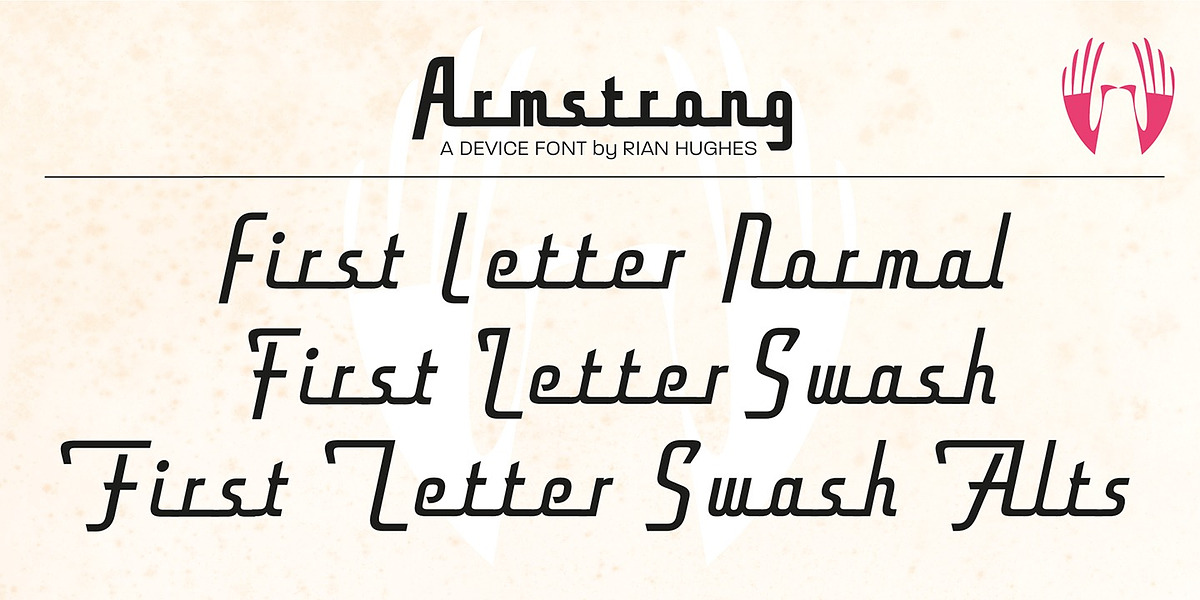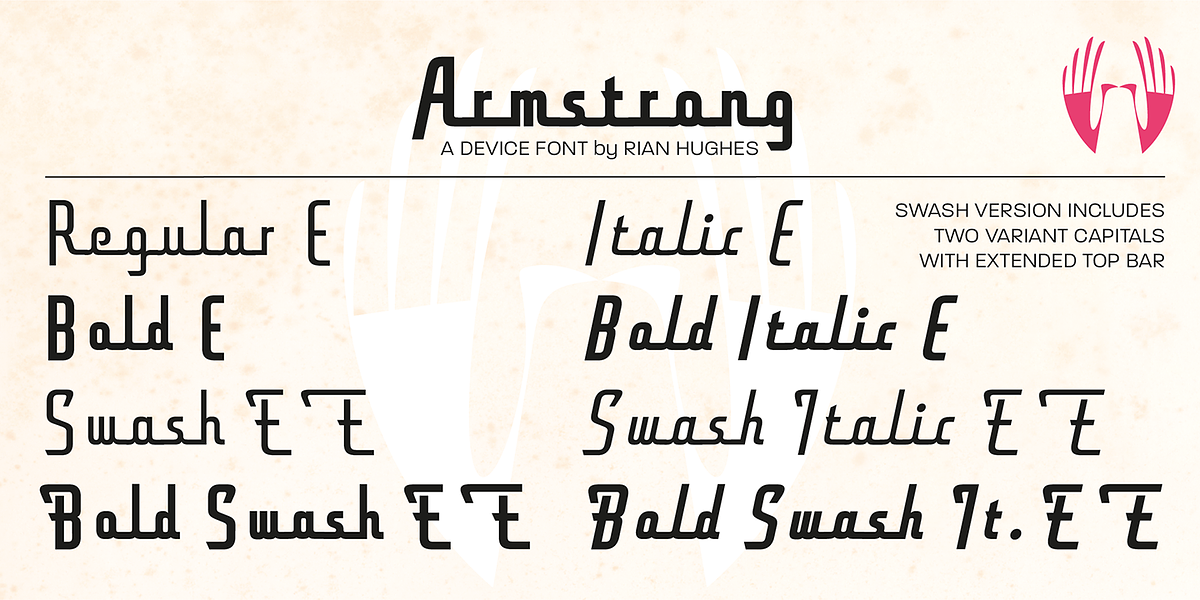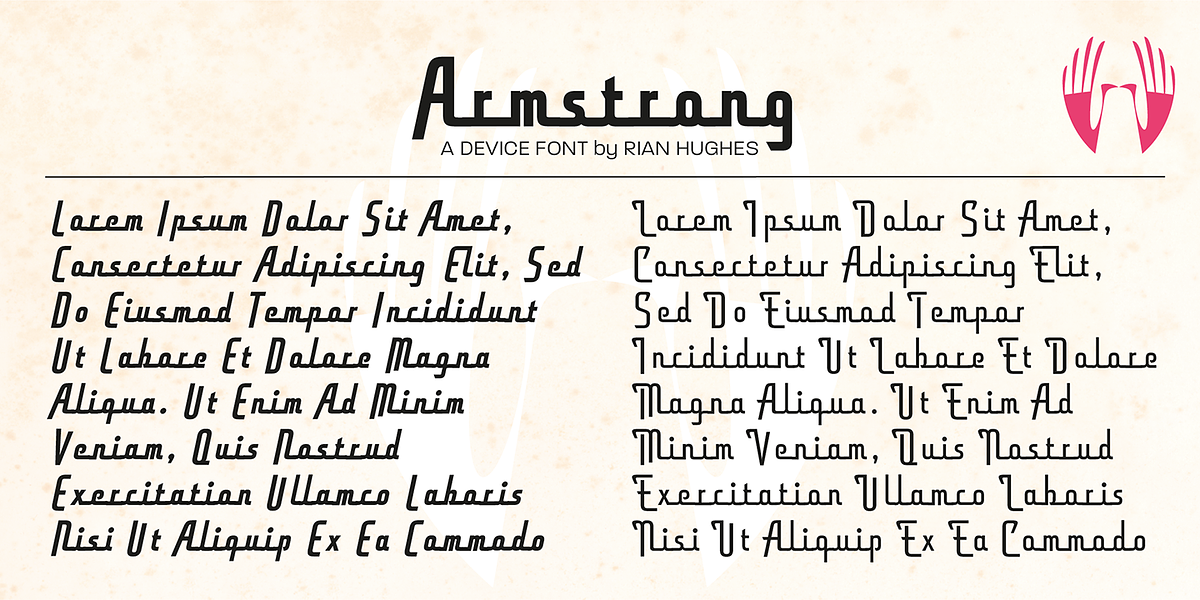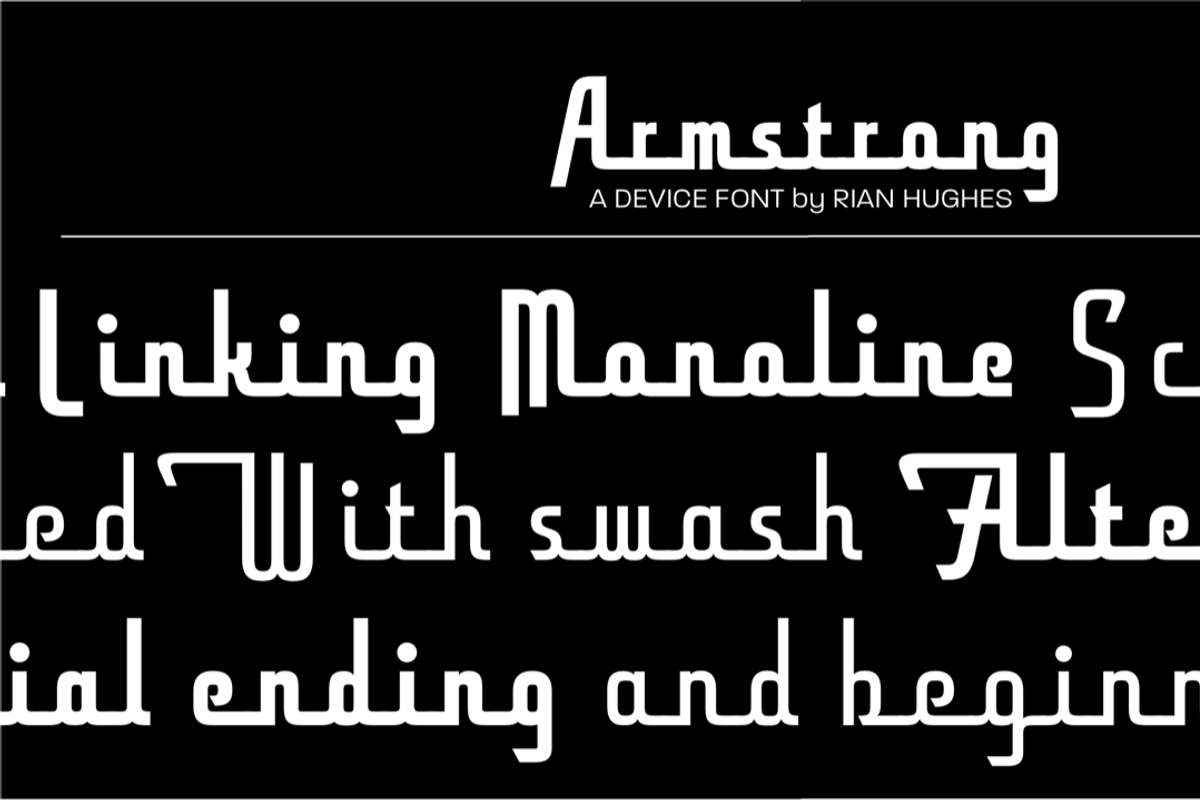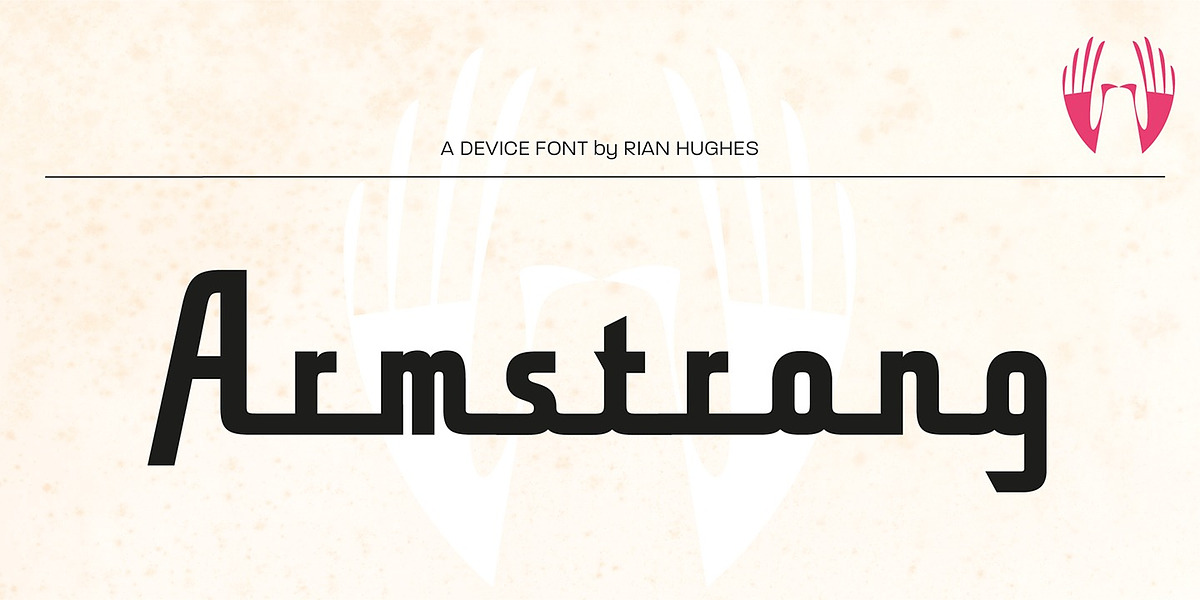
Armstrong
This font is a casual script with a geometric aesthetic. It features intelligent OpenType programming that automatically substitutes beginning and ending characters for a more polished look. The font also includes swash alternates that can be activated for added stylistic flair.